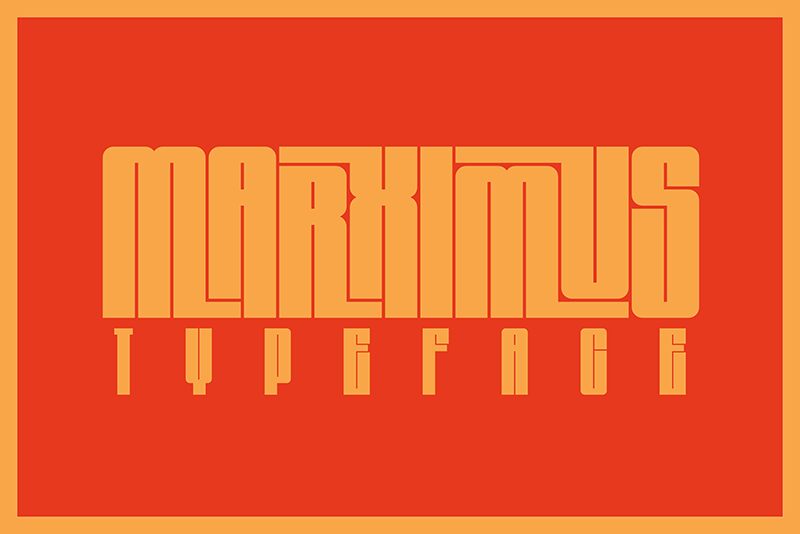
Marximus font by Toko Laris Djaja is a bold, condensed display font characterized by its blocky and geometric style. Distinctive in its minimalist utilitarian appeal, the typeface evokes an industrial futuristic essence. Each symbol is confidently built with consistent shapes for a clean, straightforward appearance unified throughout text messages.
Consider Marximus a free display font to use on headlining text in flyers or posters. The typeface magnificently suits brand packaging designs and logotypes crafted for gadget accessory makers, electrical service companies, or sporting goods shops. Various interfaces such as apps or game menus can be given a modern visual upgrade when this potent font is involved.